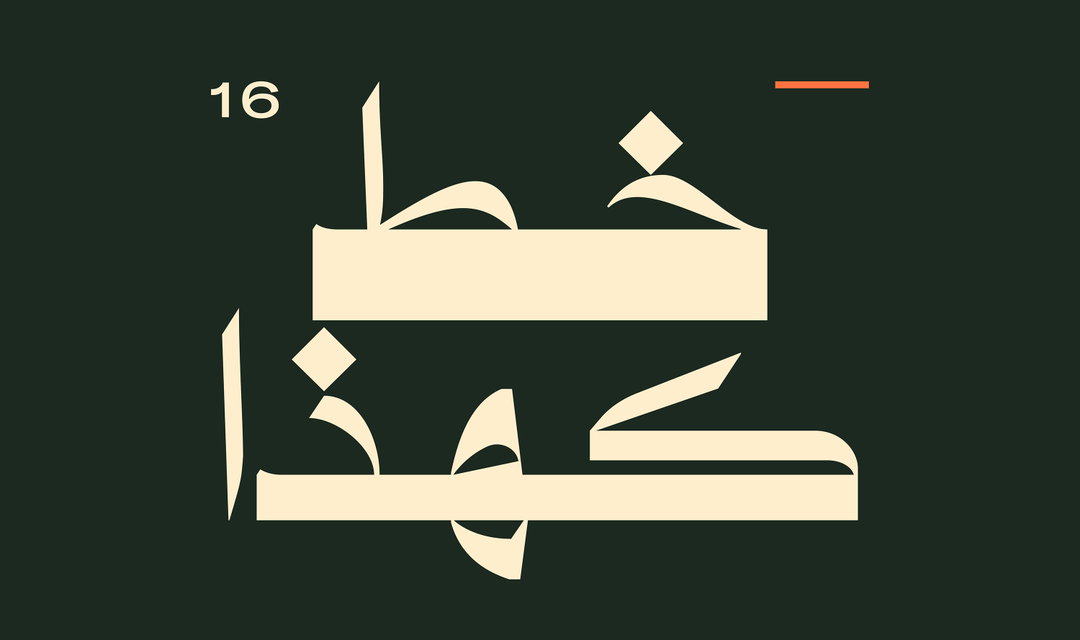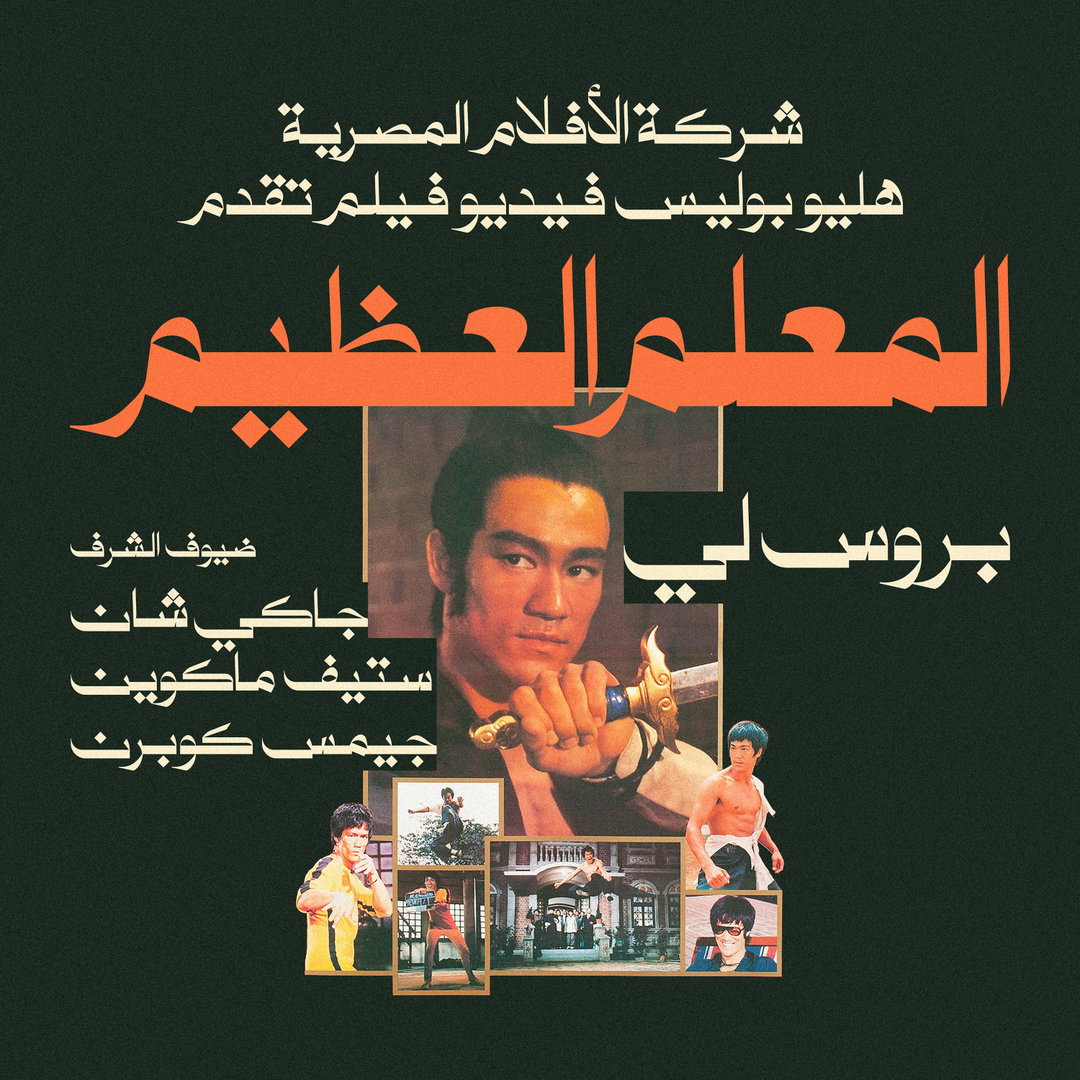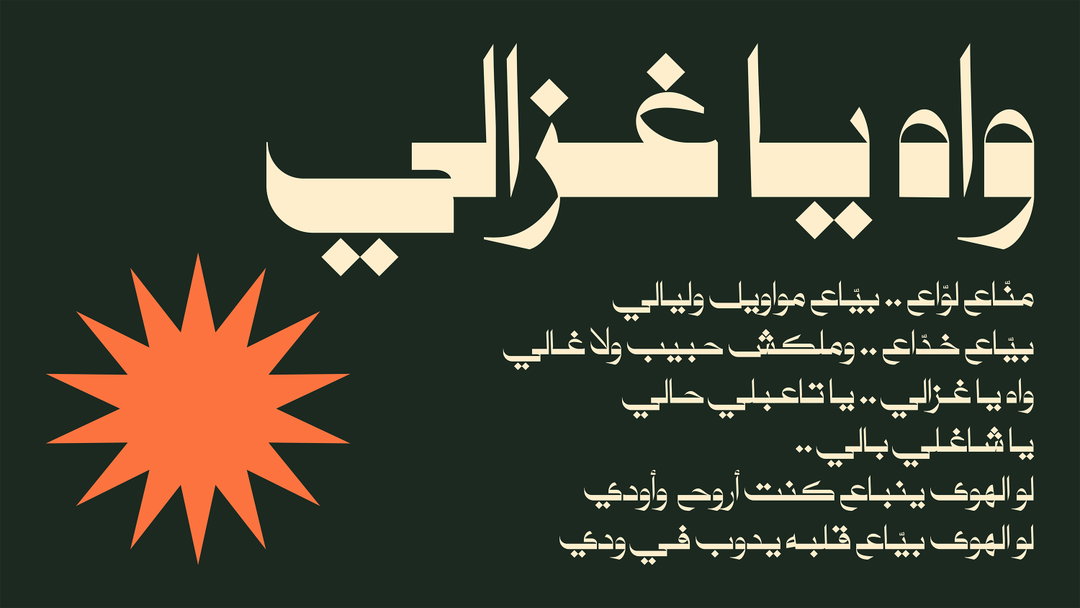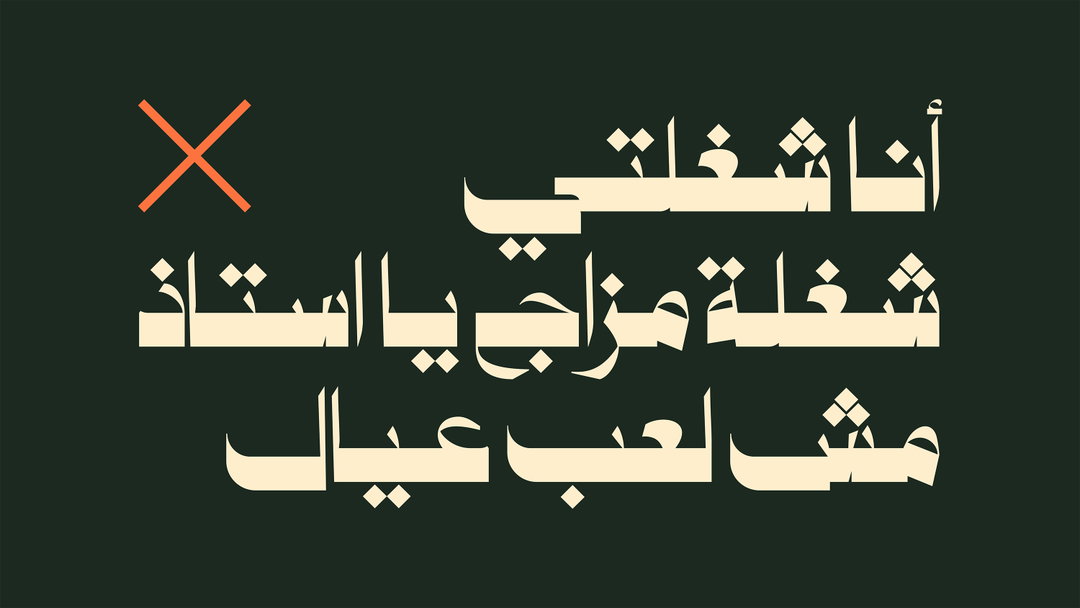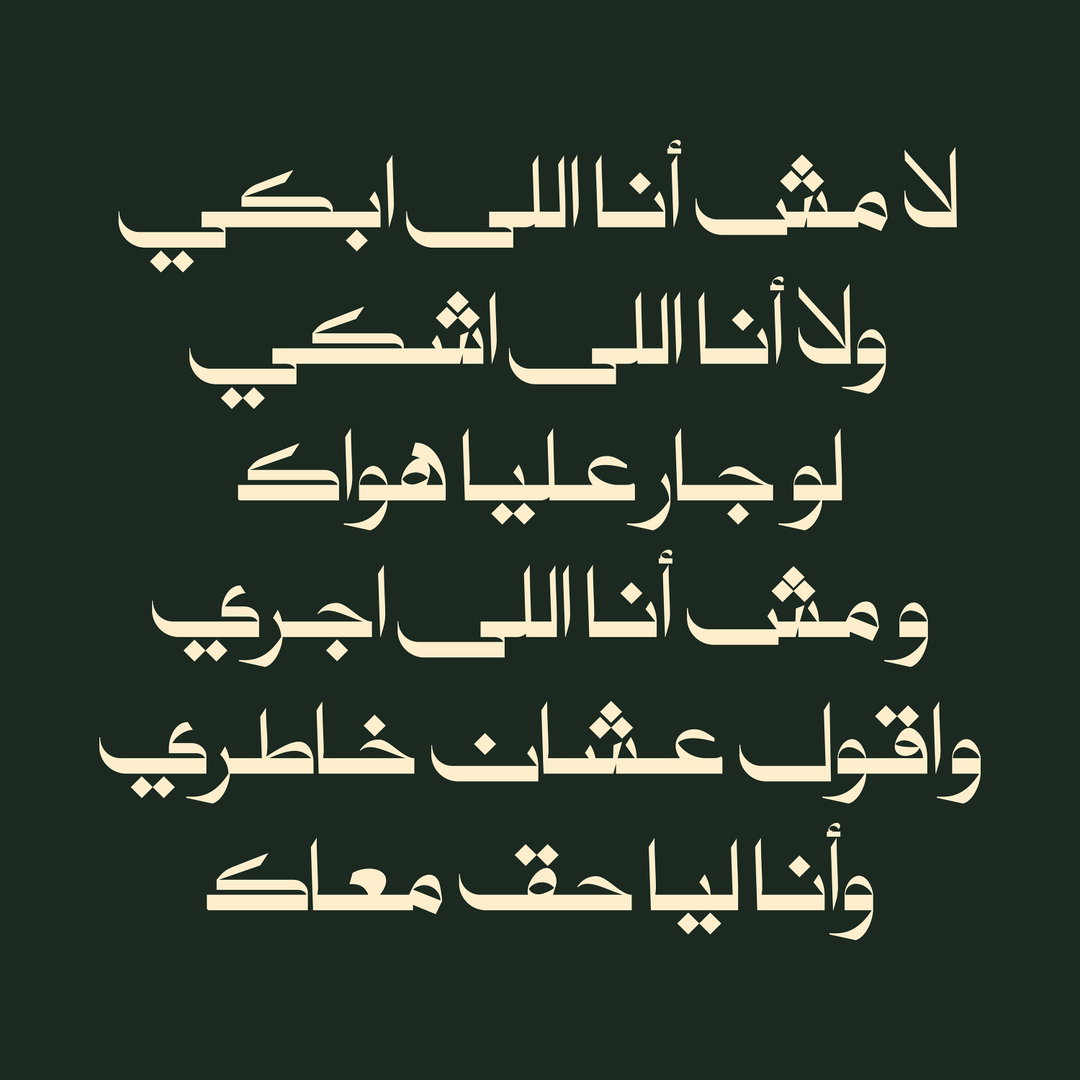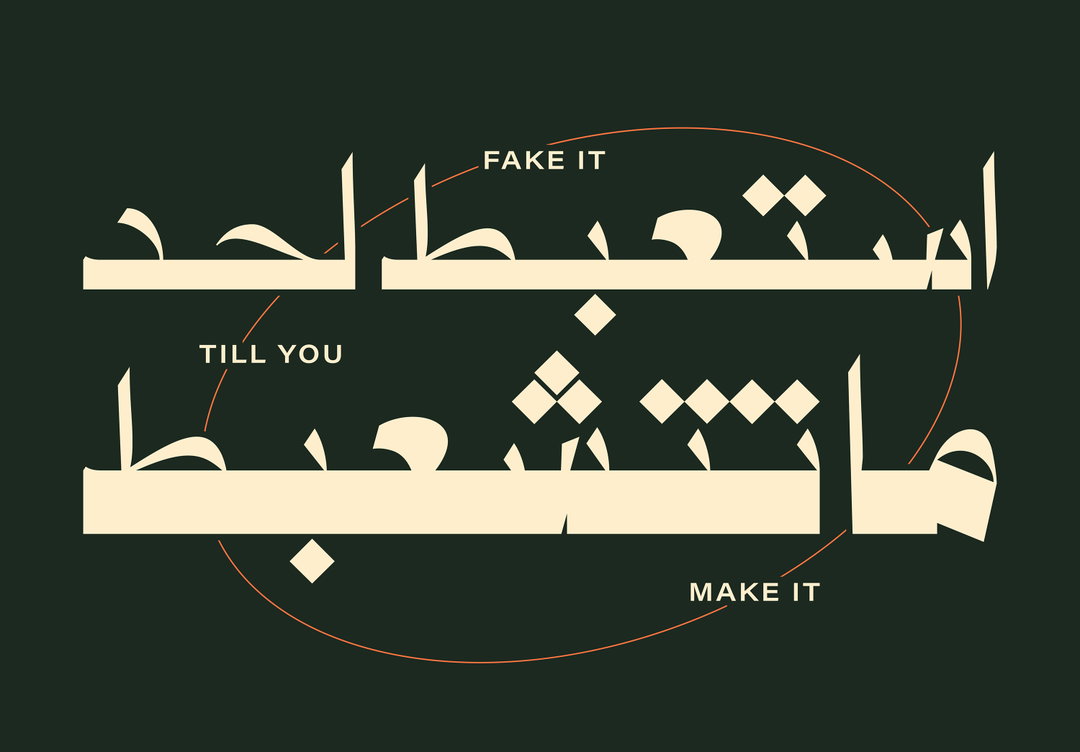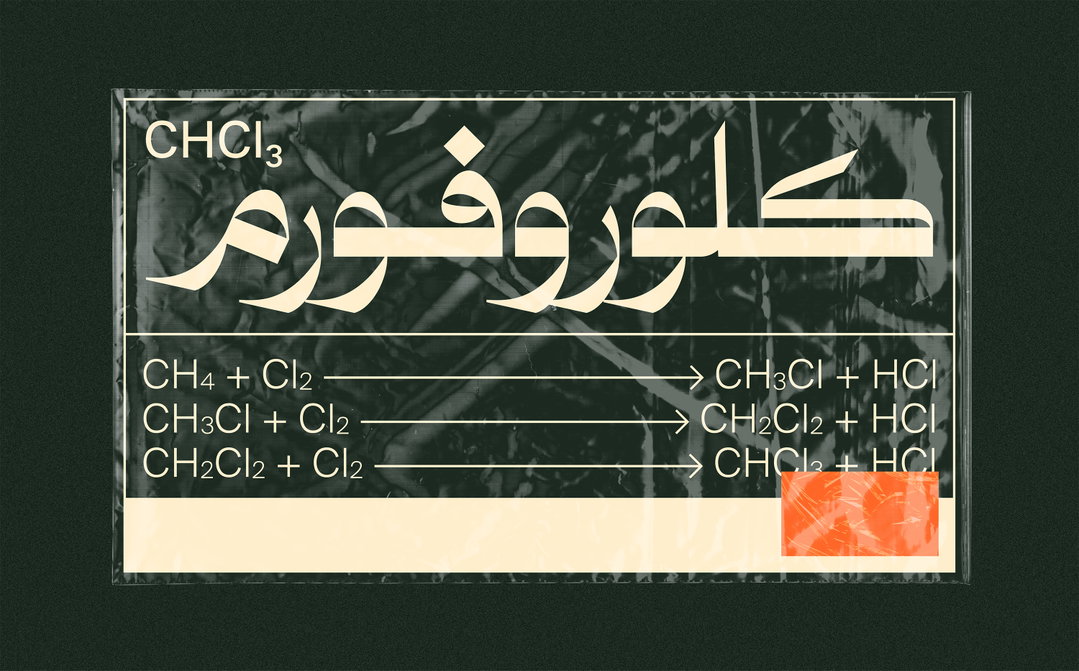
A movie poster featuring Bruce Lee in a central portrait, holding a sword. Large Arabic text in orange and white dominates the composition, with smaller Arabic text listing other cast members below. Several smaller action stills from films are arranged at the bottom.
Hey Porter!’s Kahaza typeface emulates titles found on vintage Egyptian film posters
Designer Tawfiq Dawi aims to fuse vintage influences with modern details, blending “the poise between sharpness and smoothness”.
When we first met Tawfiq Dawi, the man behind experimental type studio Hey Porter! back in 2021 we discovered that he had something of an affinity for posters. To remedy his boredom while making infographics and reports through his work for an NGO, he created a poster every day for three years – often resulting in 5am bedtimes. It therefore comes as no surprise to hear that Tawfiq’s most recent typeface, Kahaza, is inspired by posters, specifically the titles you might find on vintage Egyptian film posters from the 1970s and 80s. (If you fancy a look at the rich legacy of material that has inspired Kahaza, we covered the Moving Pictures Painted book of cinema Egyptian posters from CentreCentre earlier this year.)
Alongside vintage film posters, Tawfiq also took inspiration for Kahaza from Naskh script, a form of lettering used commonly in newspaper and magazine headlines across the Arab world. These two influences make Kahaza a perfect display font, ideal for editorials, posters, branding, music videos and film titles, Tawfiq lists. It comes in regular, if you’re looking for a more clean and polished look, or bold for “a more impactful statement”.
A graphic with a dark green background featuring cream-coloured Arabic calligraphy. A large, jagged orange starburst sits to the left of the text.
Despite being rooted in vintage aesthetics, Tawfiq was intent on ensuring that Kahaza still had a “dynamic contemporary balance”. This is where Hey Porter! really lives up to its experimental credentials, taking traditional aesthetics and graphic legacies and infusing them with touches that bring them firmly into the present day.
“The typeface takes a step beyond vintage influence by incorporating distinctive sharp characters that highlight detailed design work,” Tawfiq explains. To accentuate the modern feel, glyphs are elegantly expanded, but finished with distinct points, creating a feel that “blends the poise between sharpness and smoothness”. Tawfiq has also enlarged the dots (shaped more like diamonds) throughout the typeface which gives a “humanist appearance” while also giving the font a more “informal vibe” as Tawfiq puts it. So, if you’ve got a project that’s in need of a bold typography treatment, look no further than the authentic yet refreshing Kahaza.
A typographic illustration in cream and dark green. Stylised Arabic calligraphy is overlaid with the English phrase “Fake it till you make it”.
Cream-coloured Arabic calligraphy is centred on a dark green background. The text is arranged in six lines of balanced, flowing script.
A graphic design featuring the chemical formula “CHCl3” and the word “chloroform” written in Arabic script. Below this, three chemical equations are listed in white text against a dark, textured background.
A collage of vintage Arabic magazines, newspapers and photographs set against a dark green background. The clippings feature portraits of people, political scenes and bold typography in red, black and white.
Cream-coloured Arabic typography on a dark green background. An orange cross is positioned to the left of the text.
An illustration of cream-coloured Arabic calligraphy set against a dark green background. The number “16” appears in the top left corner.